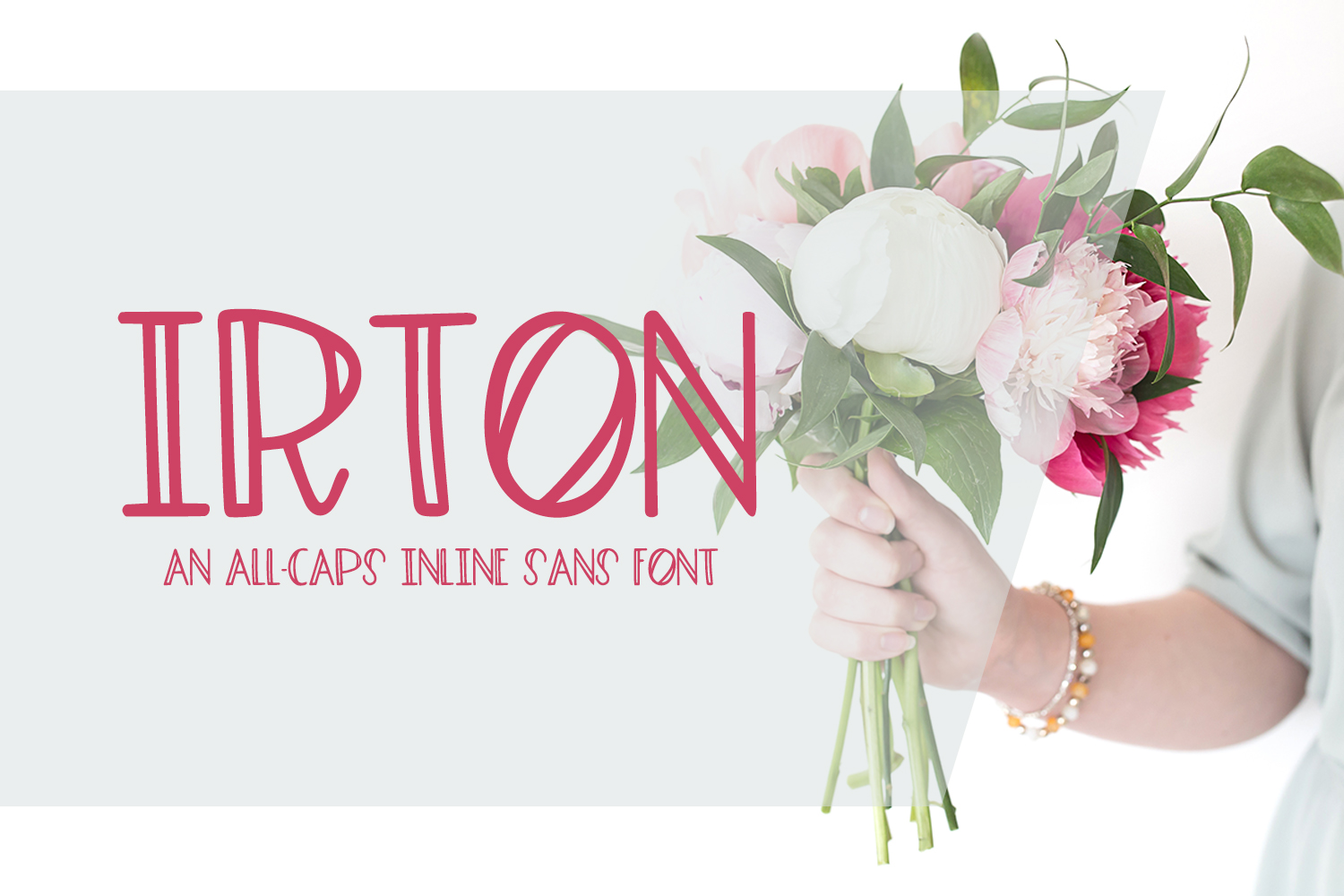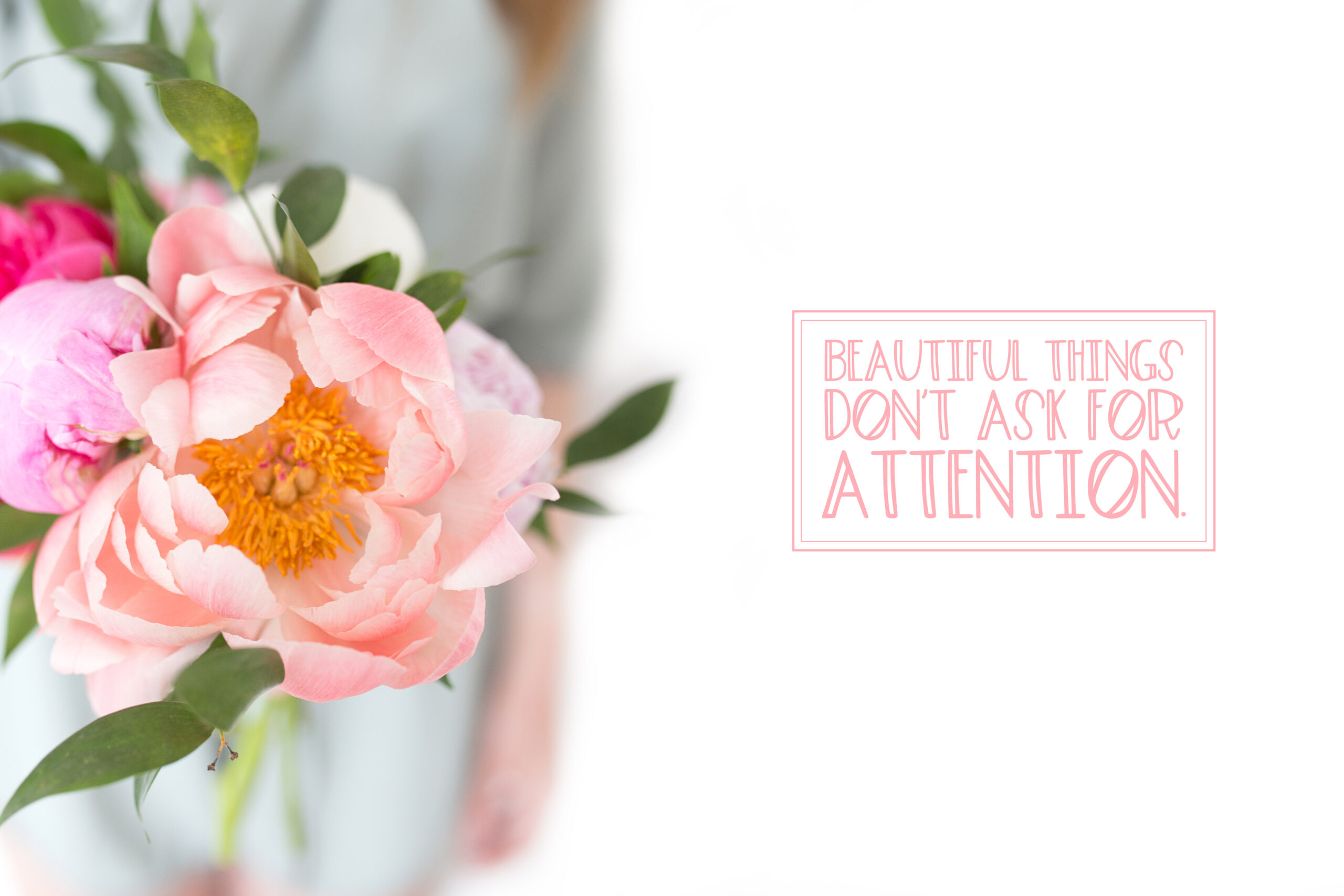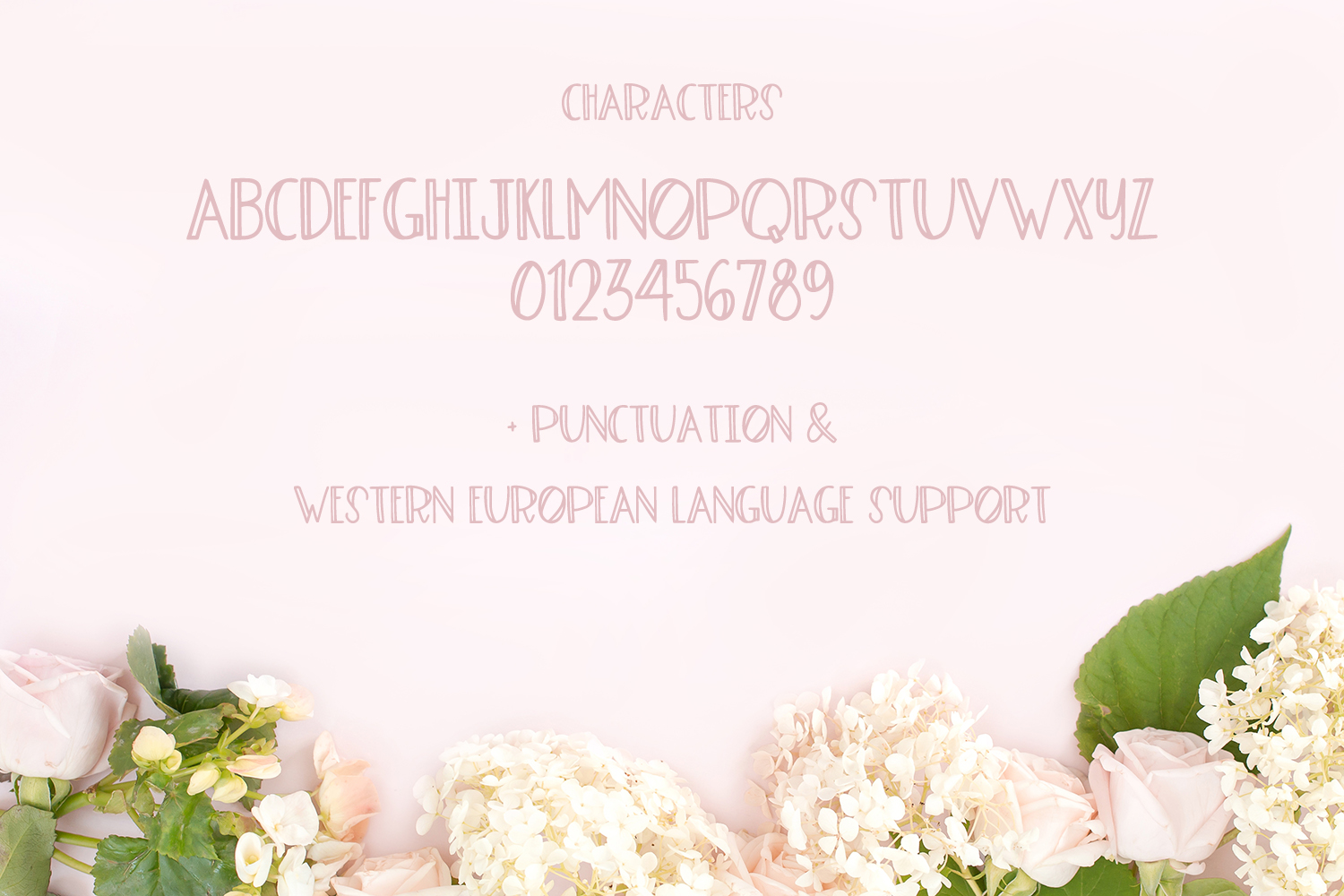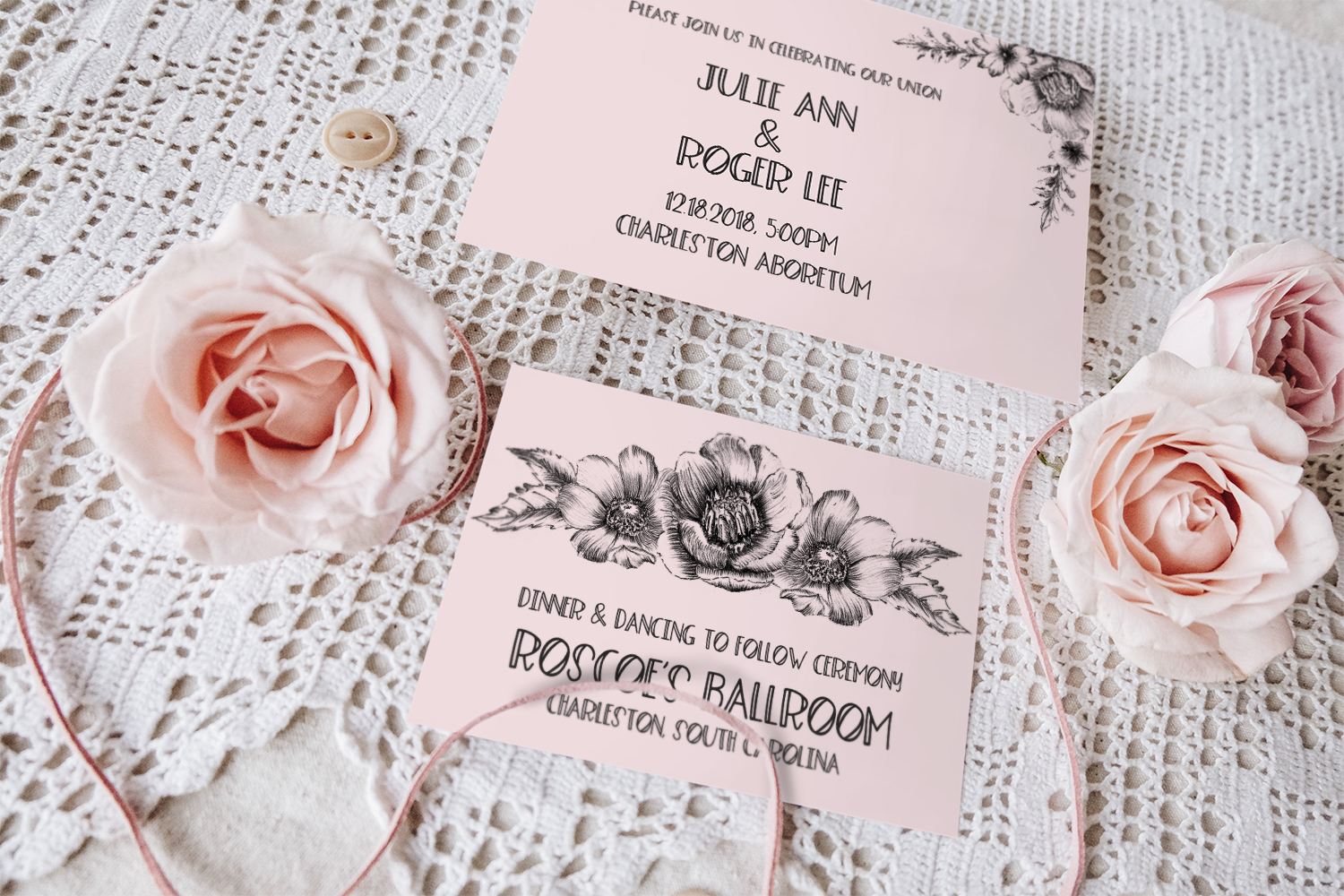
Irton Inline Font
About Irton Inline Font
Irton is a gorgeous all-caps inline font, inspired by the whimsy and quirkiness of the English Countryside. Irton works well for displays and adding a charmingly rural tonality to your projects.